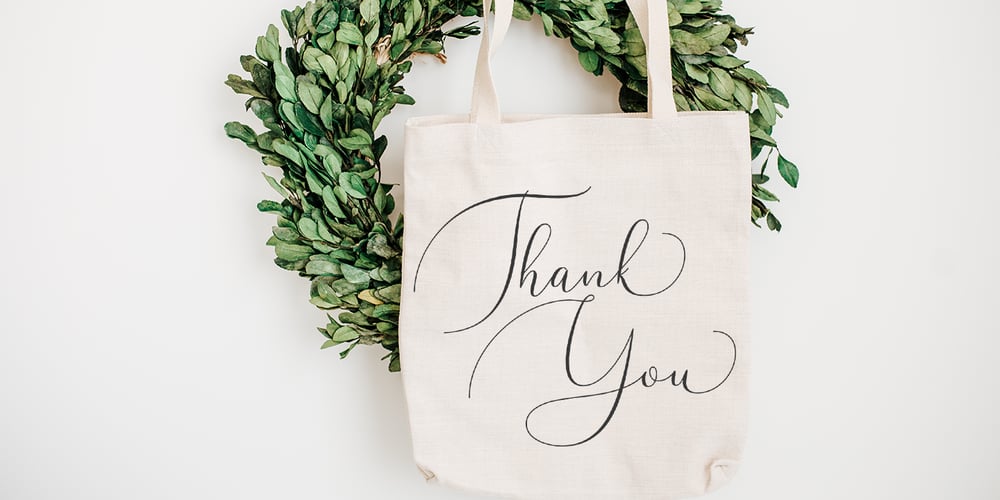
Argentina Script
Argentina Script font
Argentina Script Font Family was designed by M Akmal and published by Mega Type. Argentina Script contains 1 styles and family package options. Argentina Script is a romantic calligraphy font that features a varying baseline, smooth line, classic and elegant touch. Can be used for various purposes.such as headings, signature, logos, wedding invitation, t-shirt, letterhead, signage, labels, news, posters, badges etc. Argentina Script features 360+ glyphs and 160+ alternate characters. including initial and terminal letters, alternates, ligatures and multiple language support. To enable the OpenType Stylistic alternates, you need a program that supports OpenType features such as Adobe Illustrator CS, Adobe Indesign & CorelDraw X6-X7, Microsoft Word 2010 or later versions. How to Access Alternate Characters : • https://www.youtube.com/watch?v=xFlMwARHusY • https://www.youtube.com/watch?v=XzwjMkbB-wQ There are additional ways to access alternates/swashes, using Character Map (Windows), Nexus Font (Windows), Font Book (Mac) or a software program such as PopChar (for Windows and Mac). How to access all alternative characters, using Windows Character Map with Photoshop: • https://www.youtube.com/watch?v=Go9vacoYmBw If you have any question, don’t hesitate to contact me by email : megatype04@gmail.com Thanks & Happy Designing!